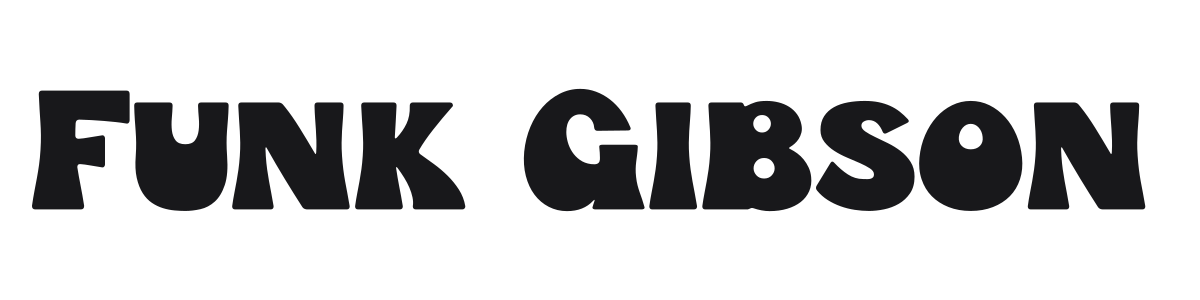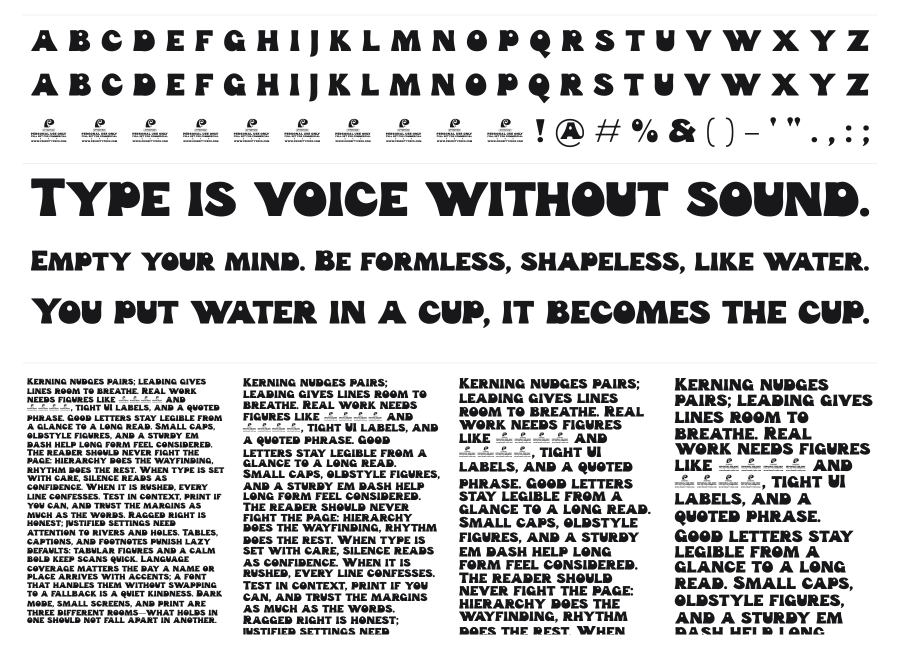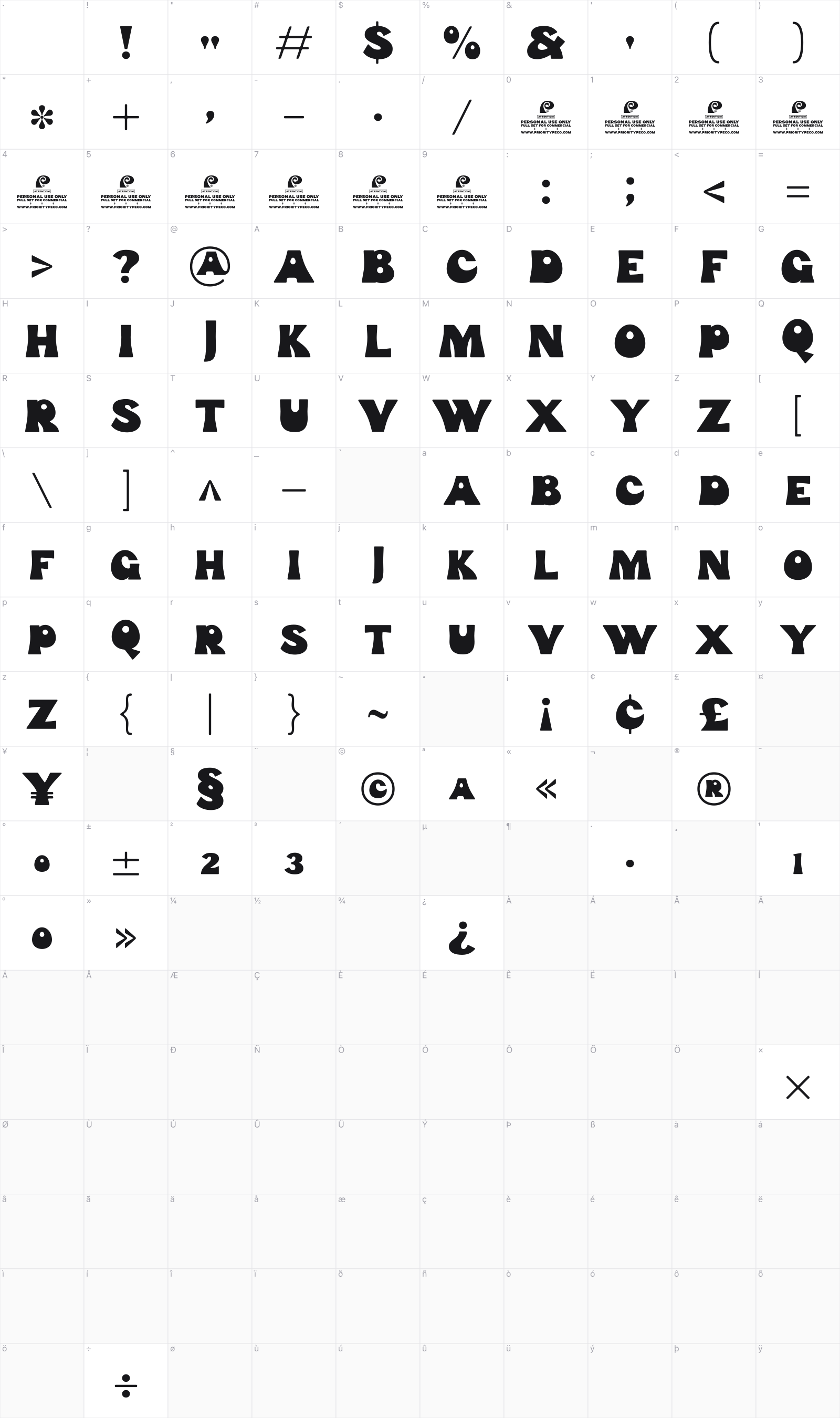
Funk Gibson
Funk Gibson is a heavy groovy display font dripping in 1970s retro energy. Each character has an exaggerated, bouncy width with round inset counters that give the whole set a bubbly, almost hand-carved quality. It brings instant retro personality to posters, album covers, and any headline that needs to feel alive.